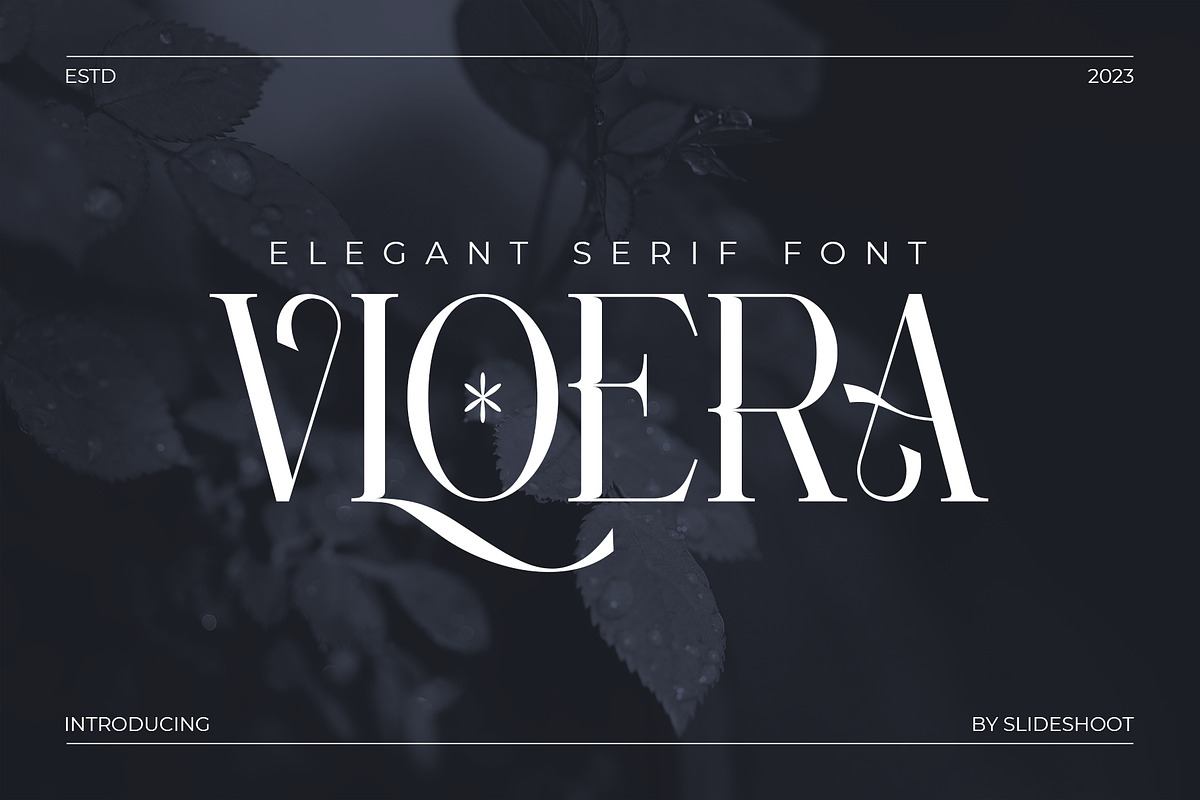
Vloera Elegant Serif Font Free Download
Vloera Elegant Serif Font Free Download is a high-class typeface designed to exude sophistication, style, and modern grace. With its refined serifs, balanced contrast, and luxurious letterforms, Vloera is perfect for fashion branding, editorial layouts, packaging design, and upscale wedding invitations.
This font adds timeless beauty to any project, combining classic elegance with a fresh, contemporary twist. Whether you're working on magazine spreads, luxury logos, or social media content, Vloera ensures your typography stands out with poise and professionalism.
Designers love Vloera for its versatility, legibility, and premium feel—making it ideal for both headline and body text in stylish designs. Want to elevate your visual identity? Download Vloera Elegant Serif Font Free Download and bring refined charm to your next project.